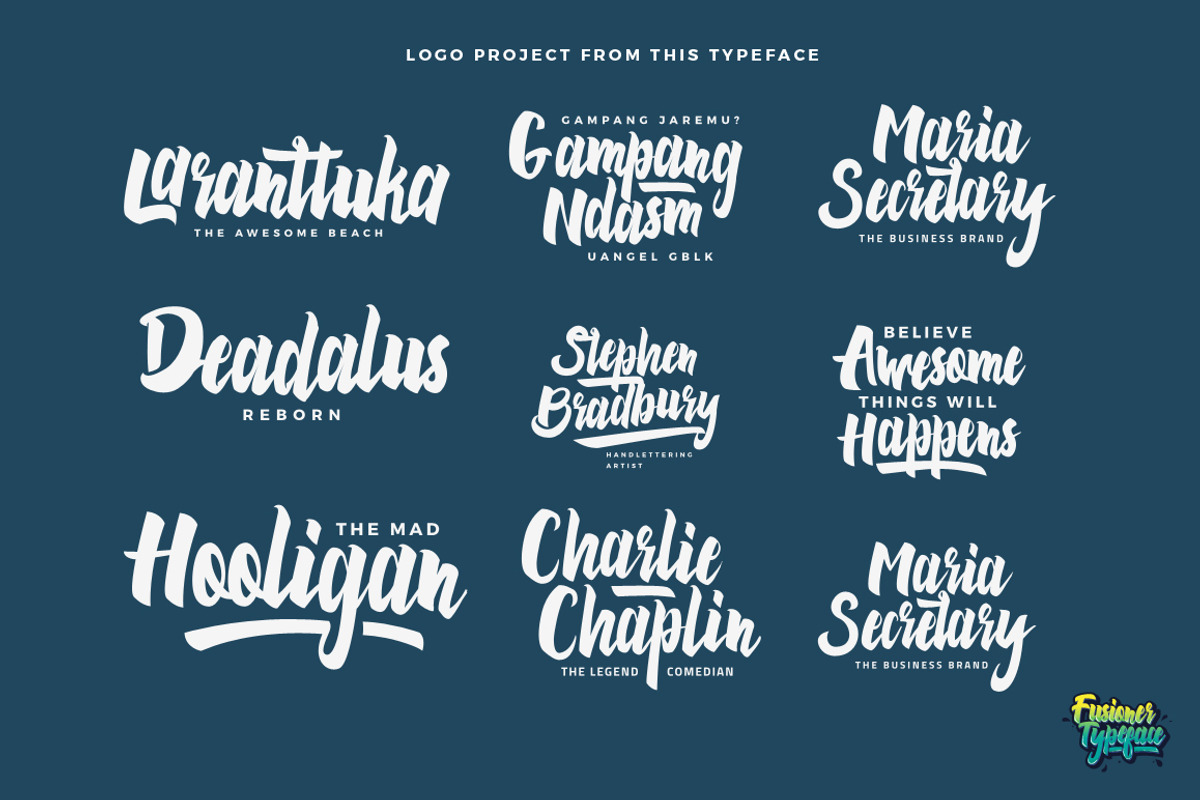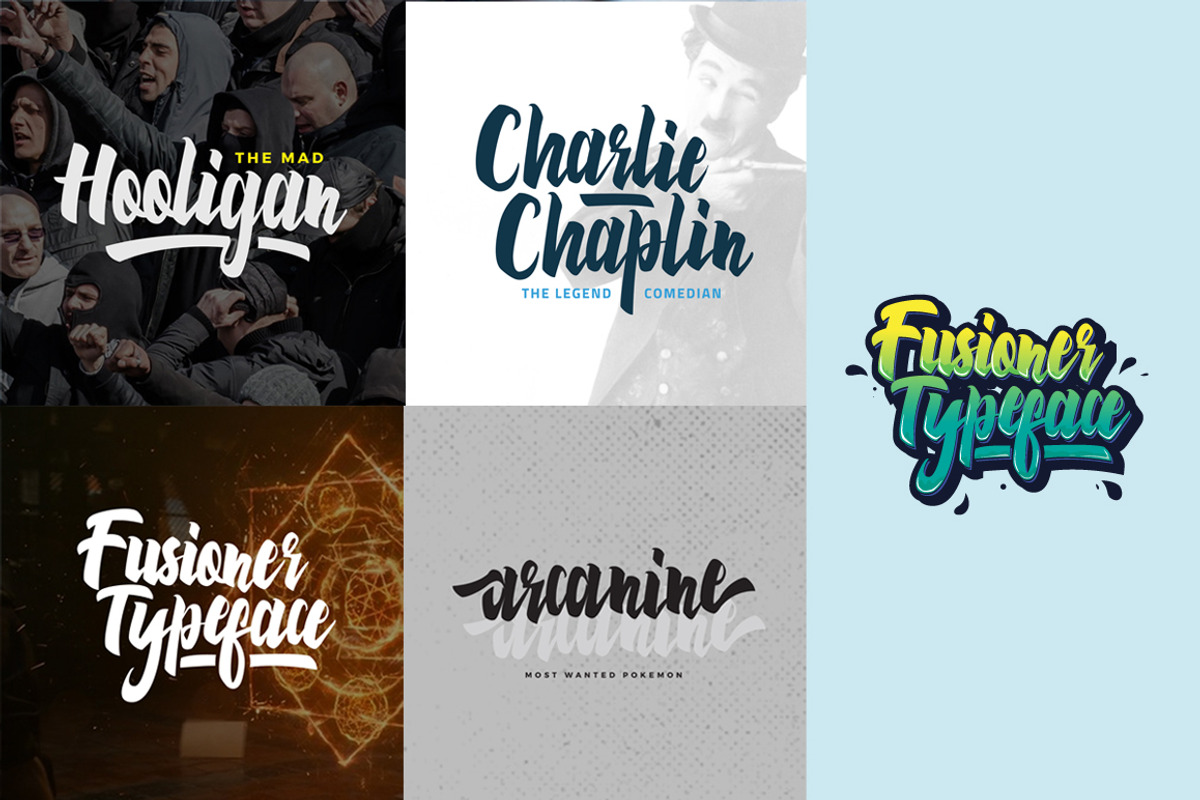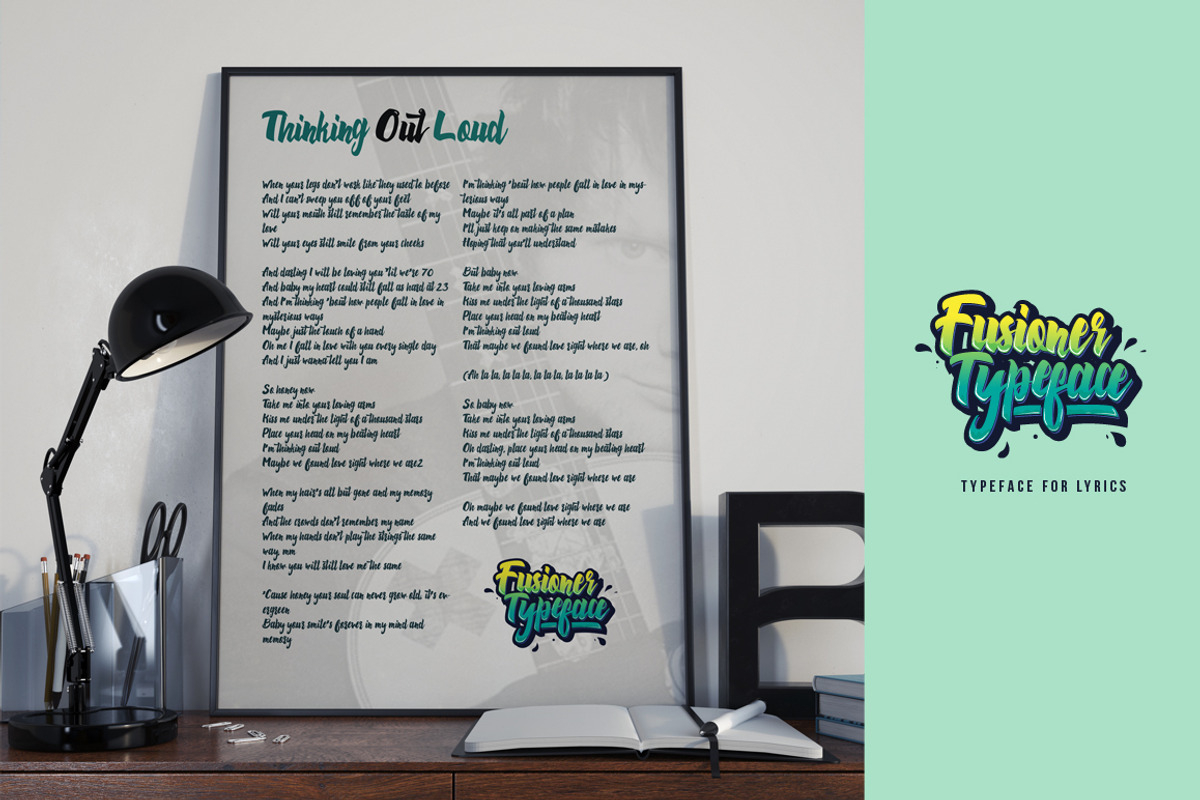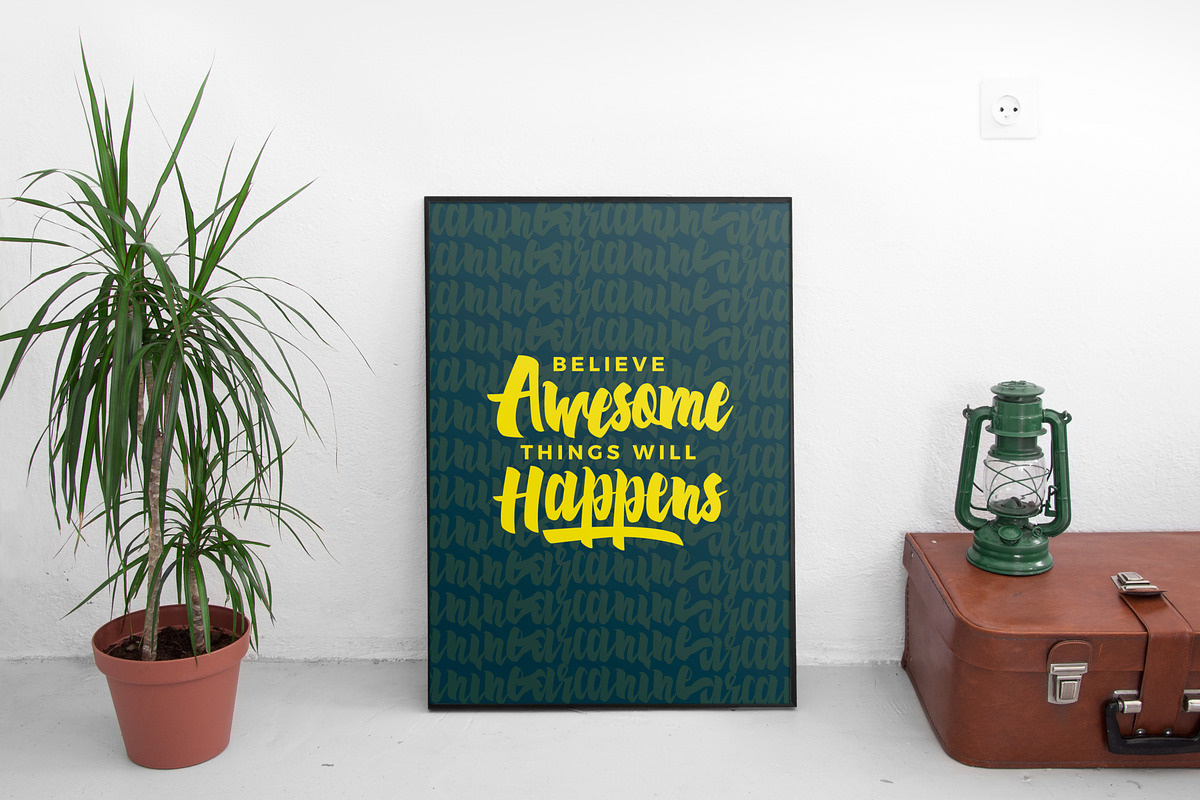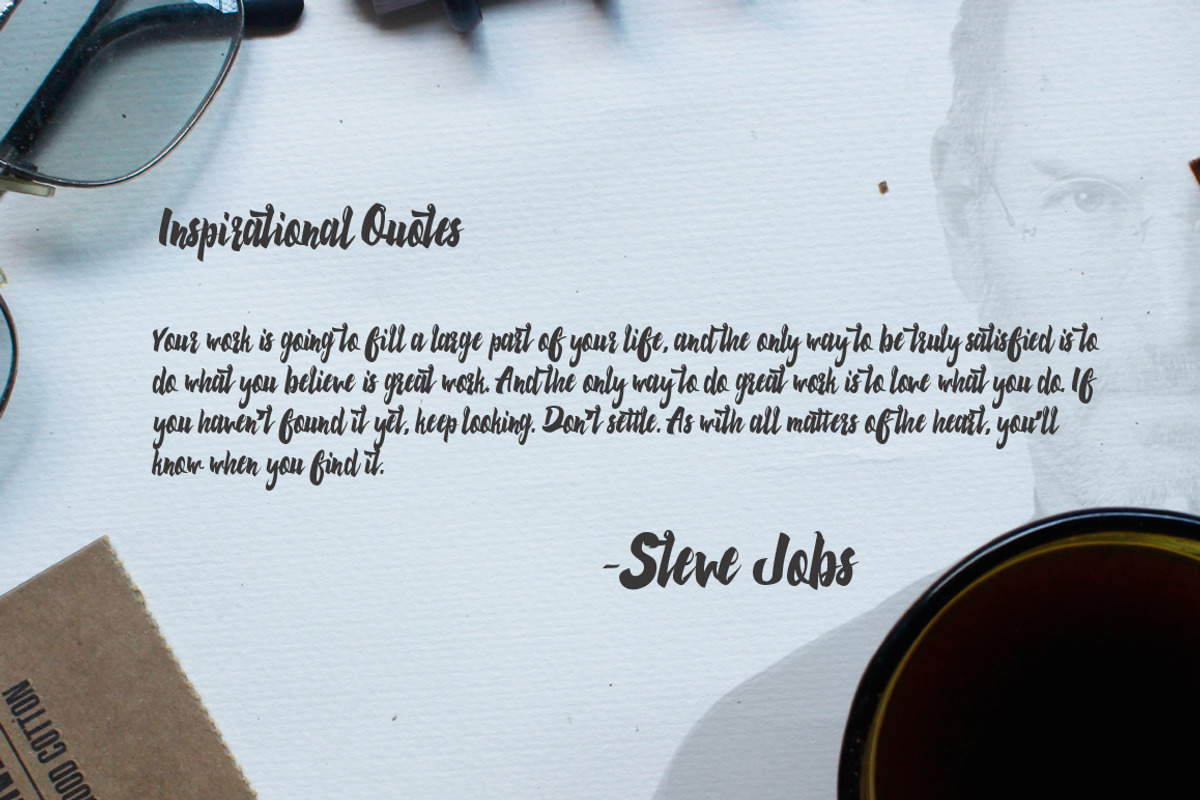
Fusioner Typeface (Intro Sale!)
Fusioner Typeface (Intro Sale!) by Haws.std is a font selected for branding, posters, packaging, typography.
- Uppercase Stylistic Alternate Special Ligatures.
Fusioner Typeface (Intro Sale!) by Haws.std fits naturally into Branding, posters, packaging, typography.